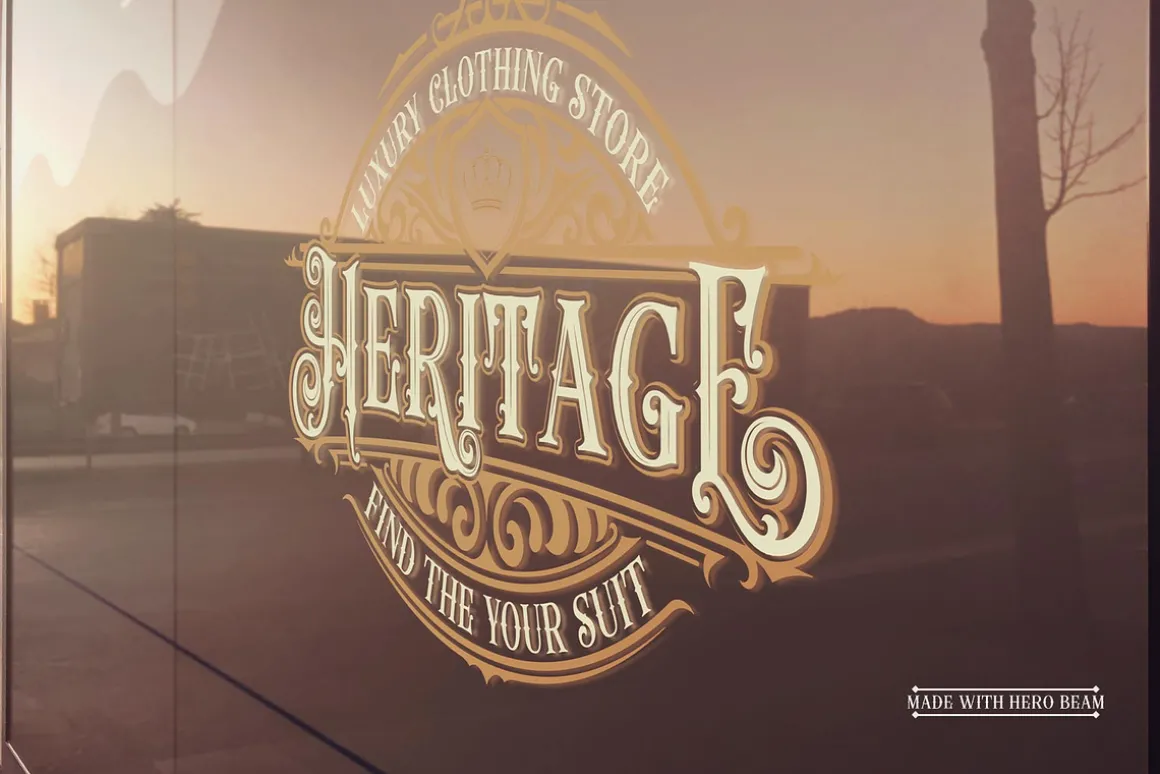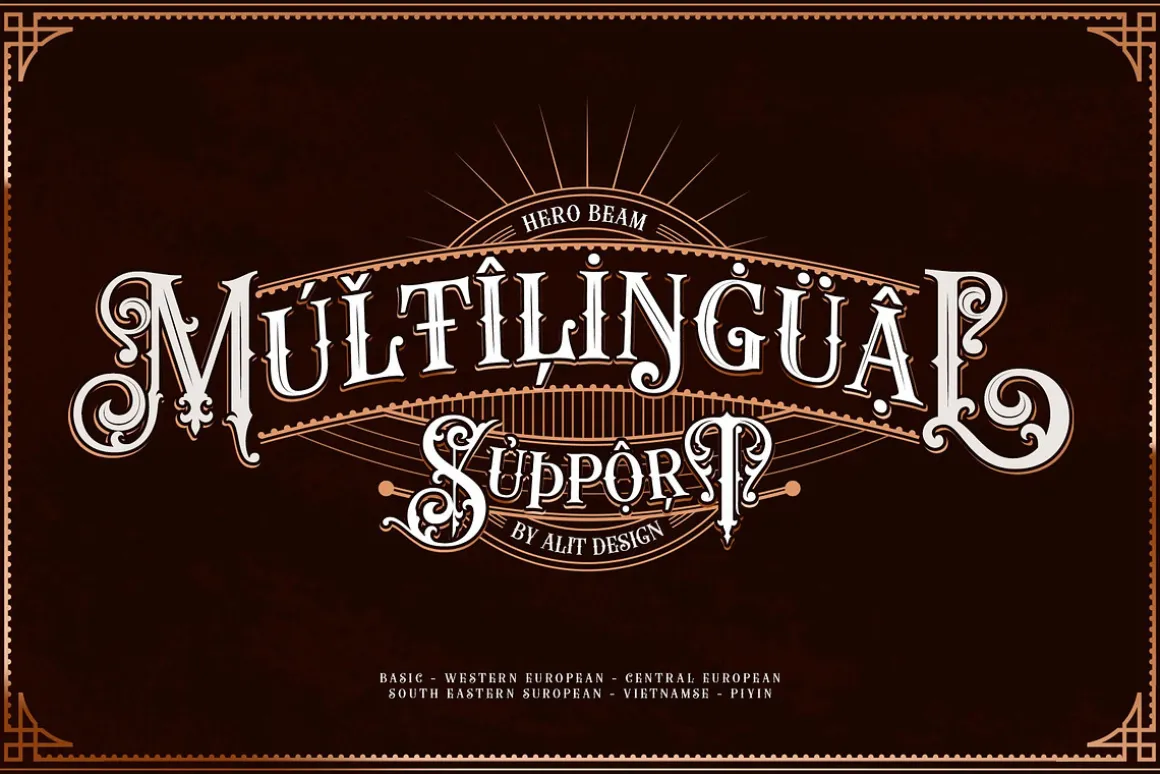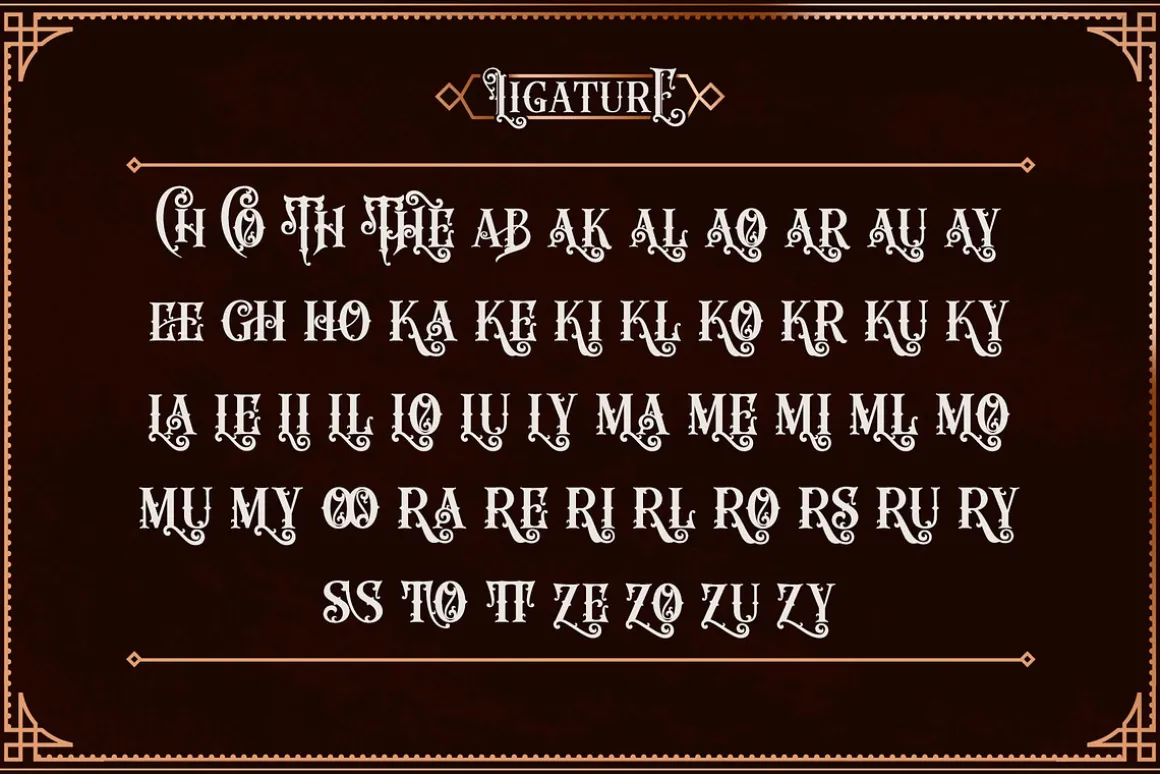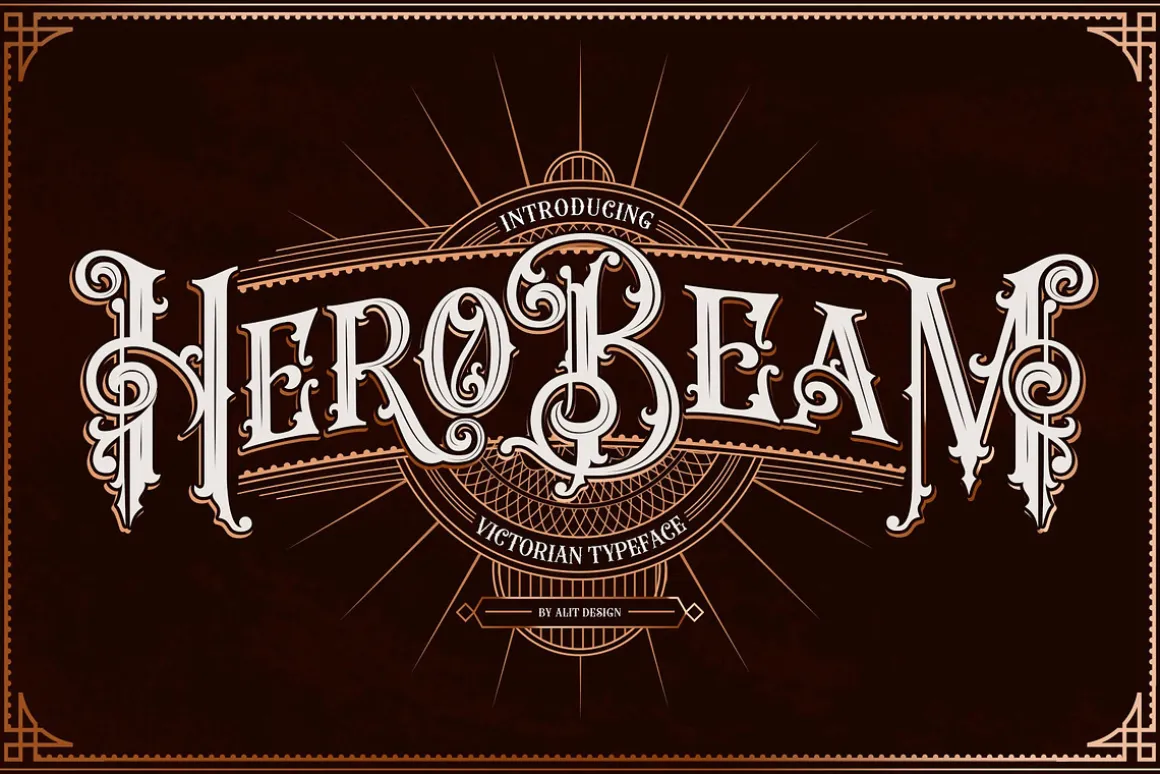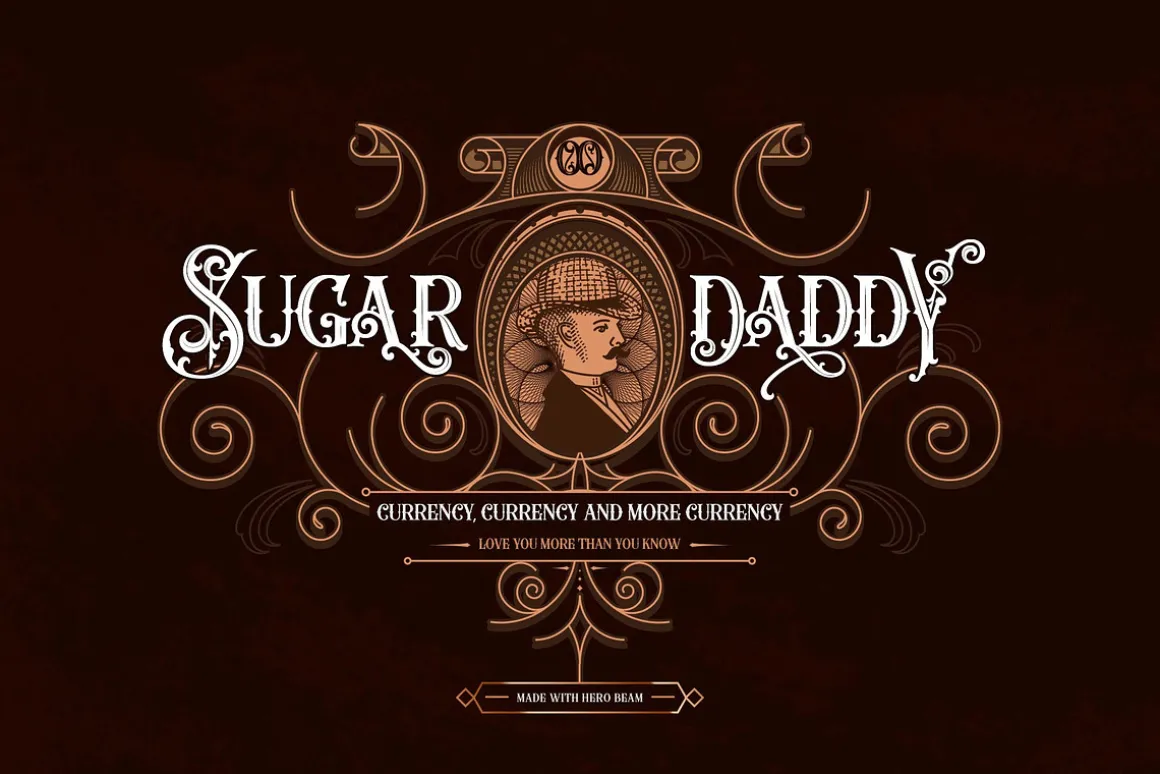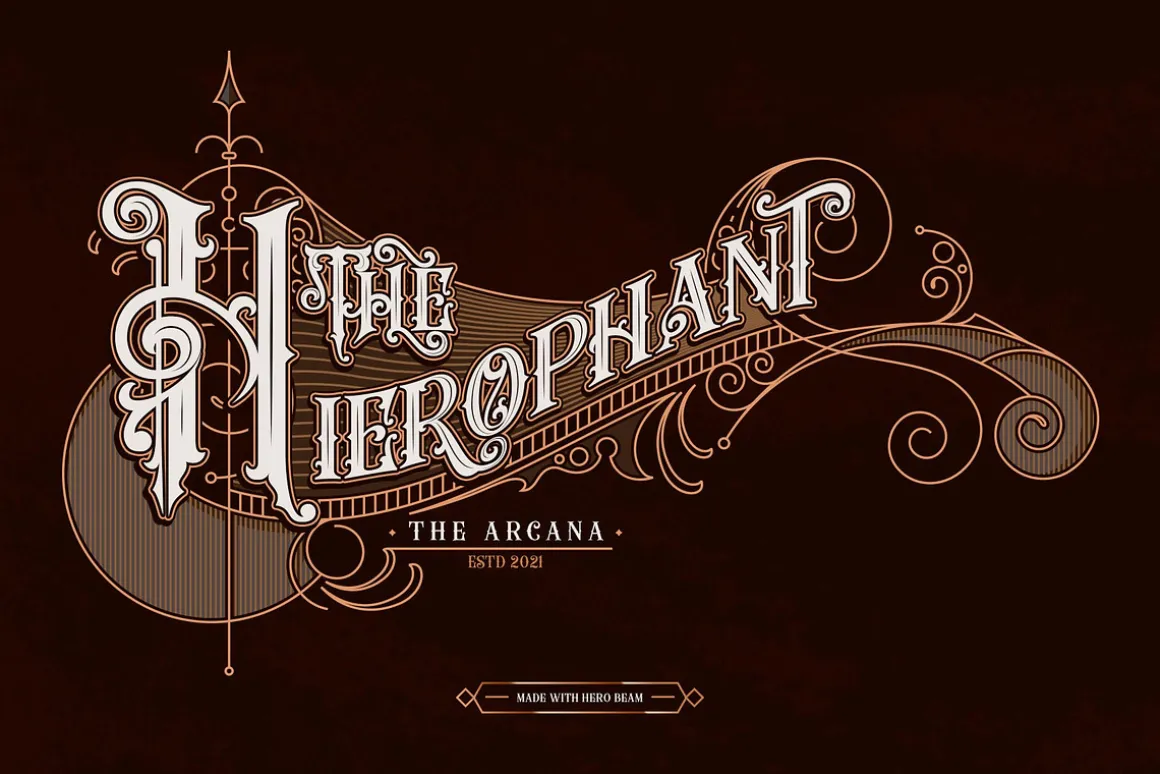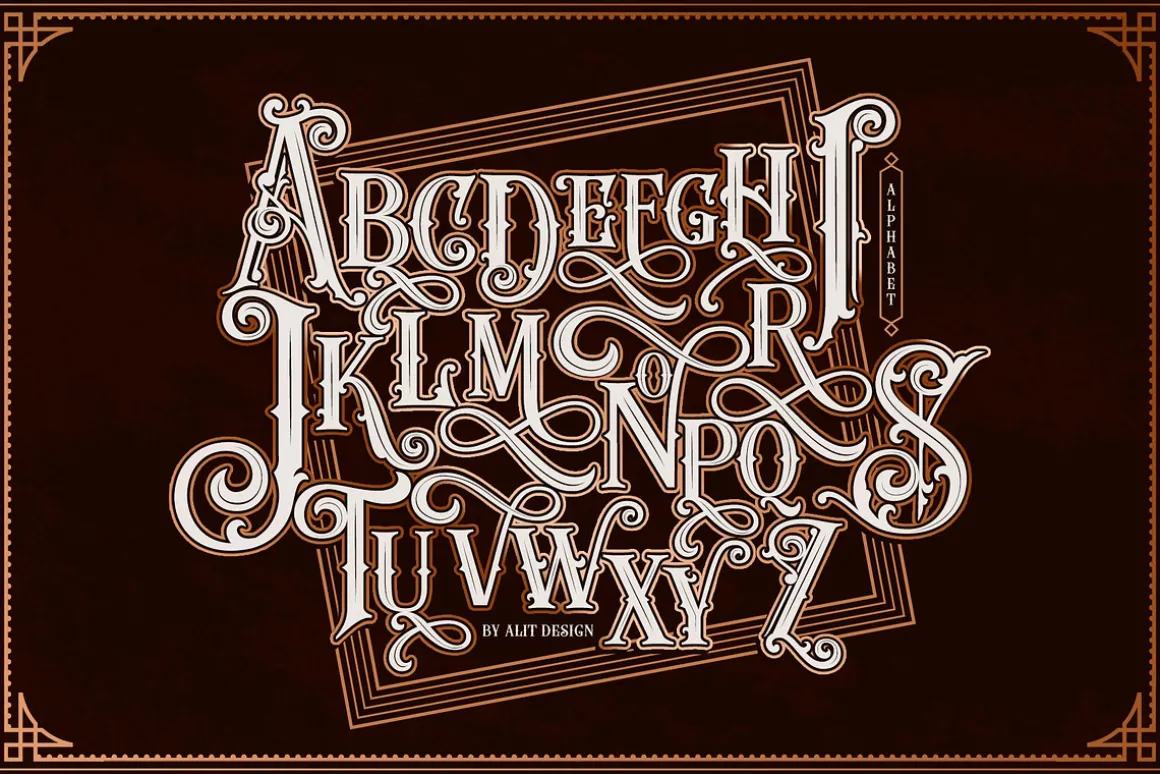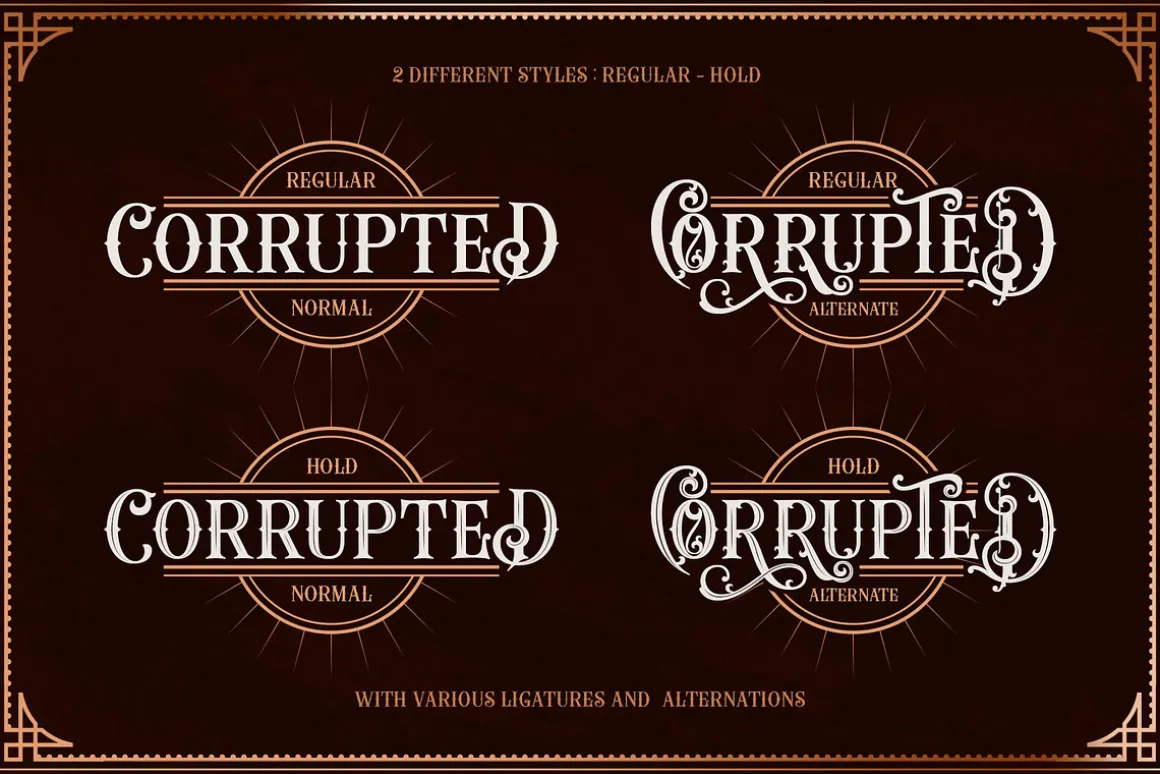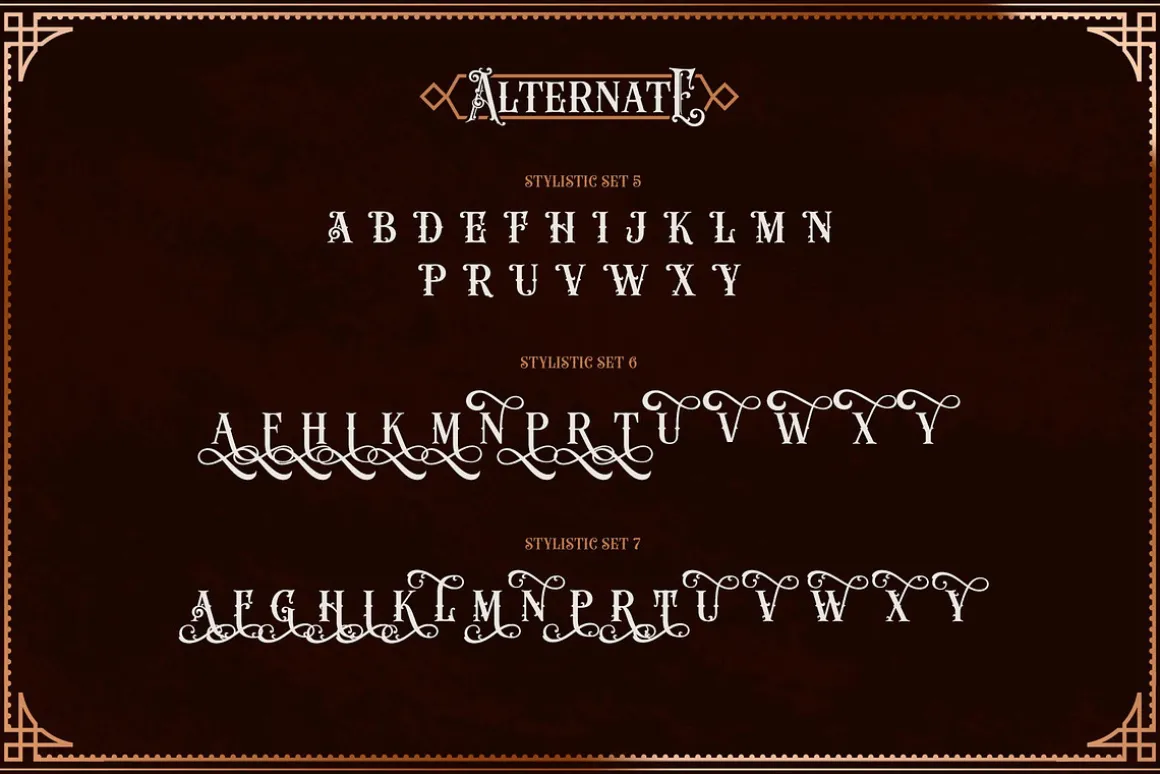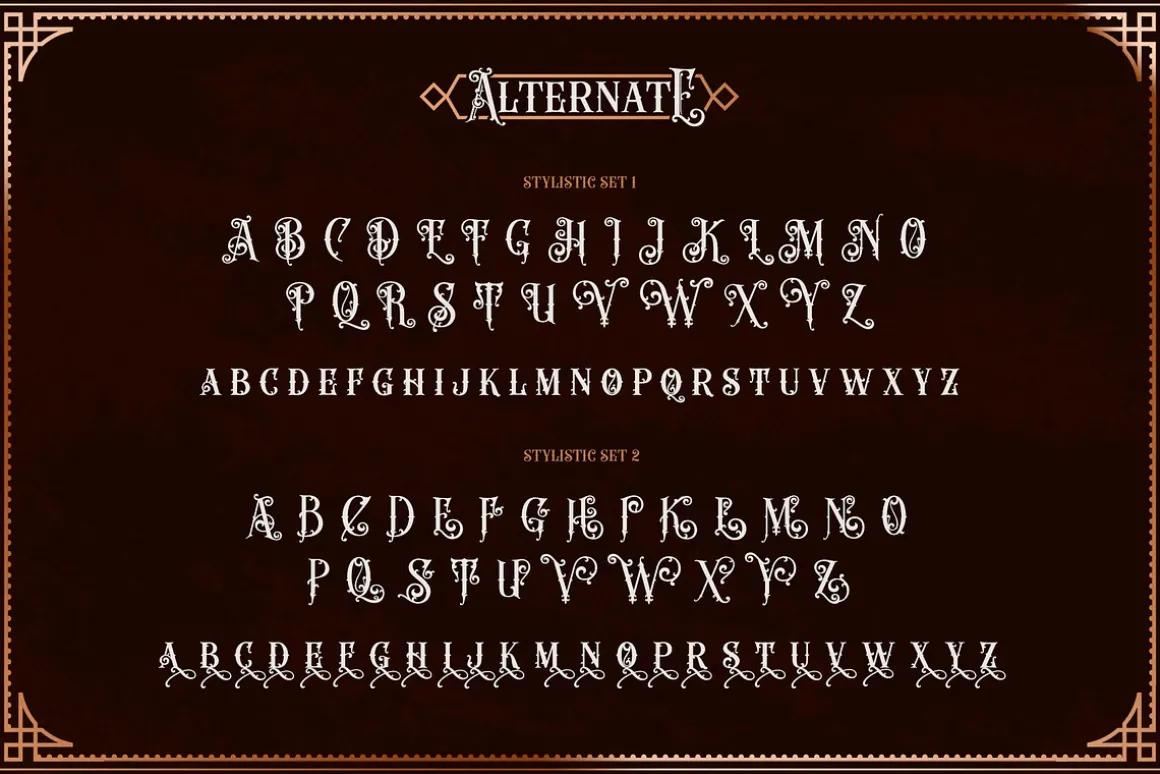
Introducing Hero Beam Typeface
Hero Beam typeface is inspired by the form of writing in the era of the European empire. Carrying a Victorian theme that has an elegant and of course cool swash. Hero Beam typeface is perfect for classic Victorian themed designs, packaging beer, whiskey, barbershop, pomade, tattoo studio logo and so on.
Hero Beam also has 2 types of letter shapes, namely the regular type and the hold type which is like bone which makes it more character.